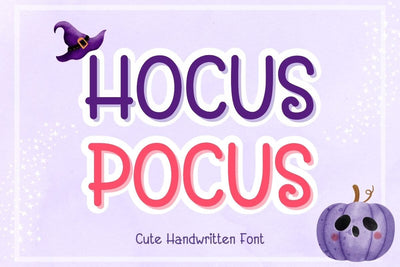
Hocus Pocus - Handwriting Font
Introducing the delightful "Hocus Pocus" handwritten font, a must-have for all your creative projects. This charming font adds a touch of whimsy and personality to your crafty ideas, ensuring the outcomes are truly magical. Whether you're designing banners, content, mugs, cards, shirts, stationery, or social media posts, Hocus Pocus font has you covered.